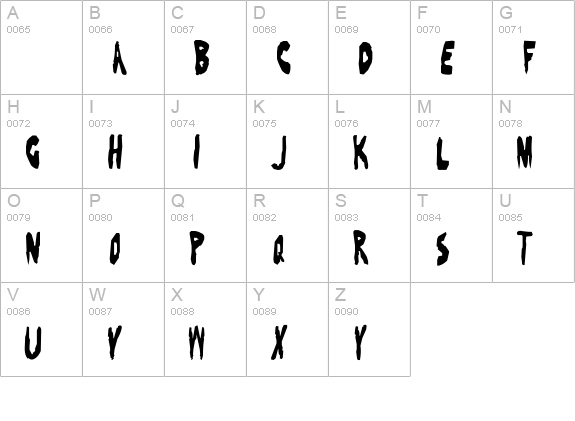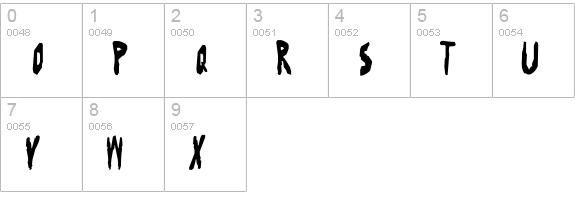
Ben Folds Five Font Details
The Ben Folds Five font is a stylish and versatile typeface that exudes creativity and charm. Its unique design captures the essence of the iconic alternative rock band, combining a modern aesthetic with a hint of nostalgia. The sleek lines and distinctive curves of this font make it perfect for a wide range of design projects, from album covers to posters to social media graphics. Best of all, the Ben Folds Five font is available for free download at FontsMarket.com. This means that you can easily add a touch of musical flair to your creations without breaking the bank. Whether you're a fan of the band or simply appreciate well-crafted typography, this font is sure to make a statement in your designs. So why wait? Download the Ben Folds Five font today and let your creativity soar!